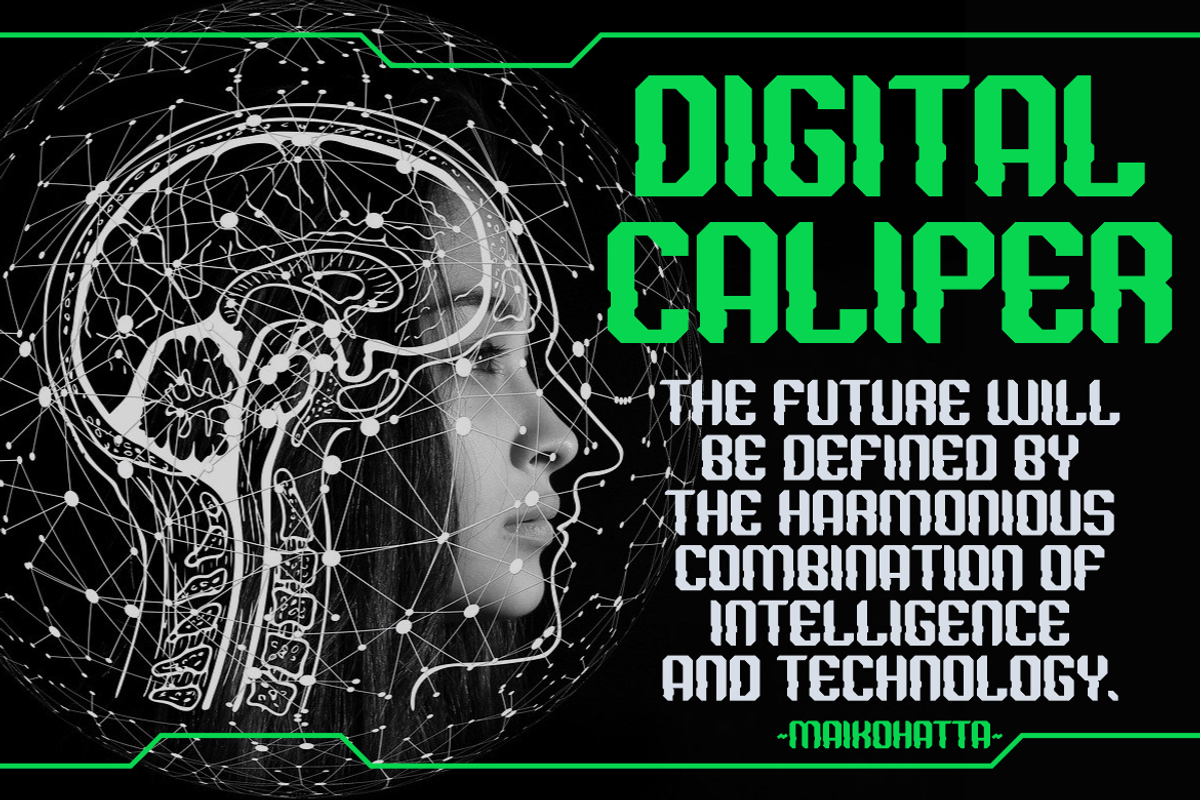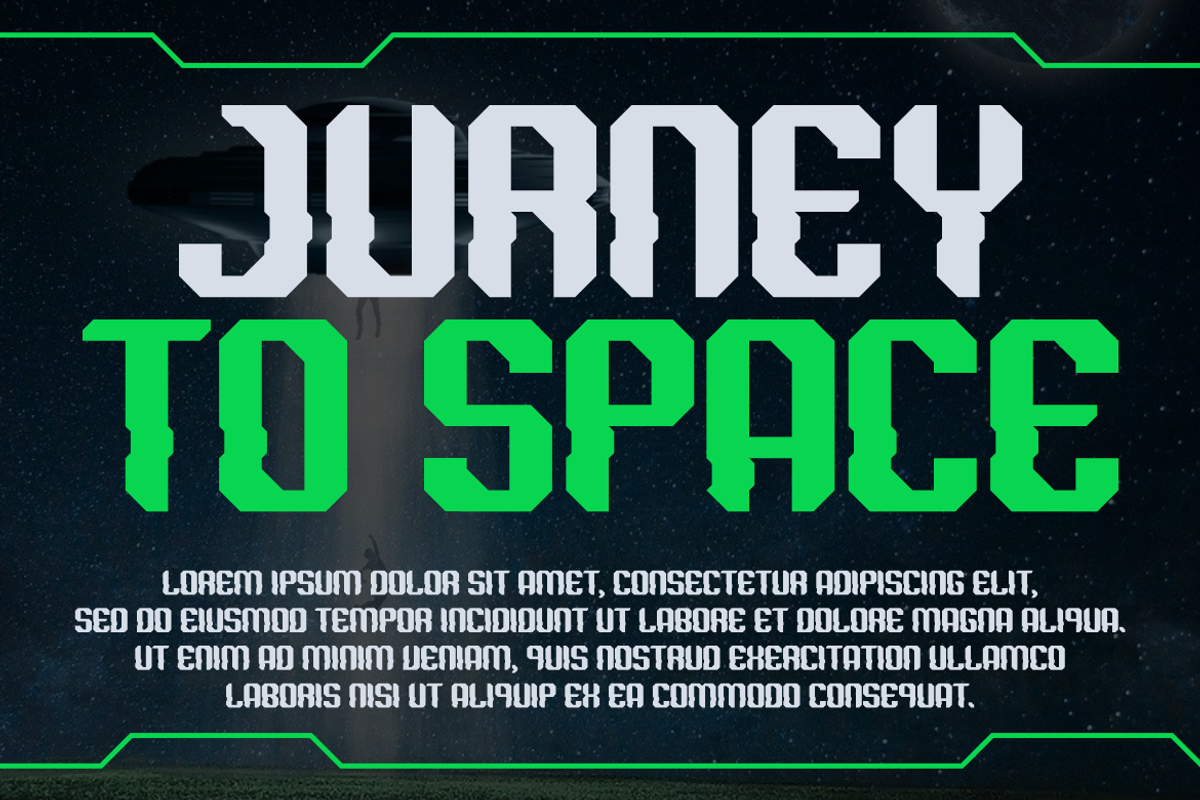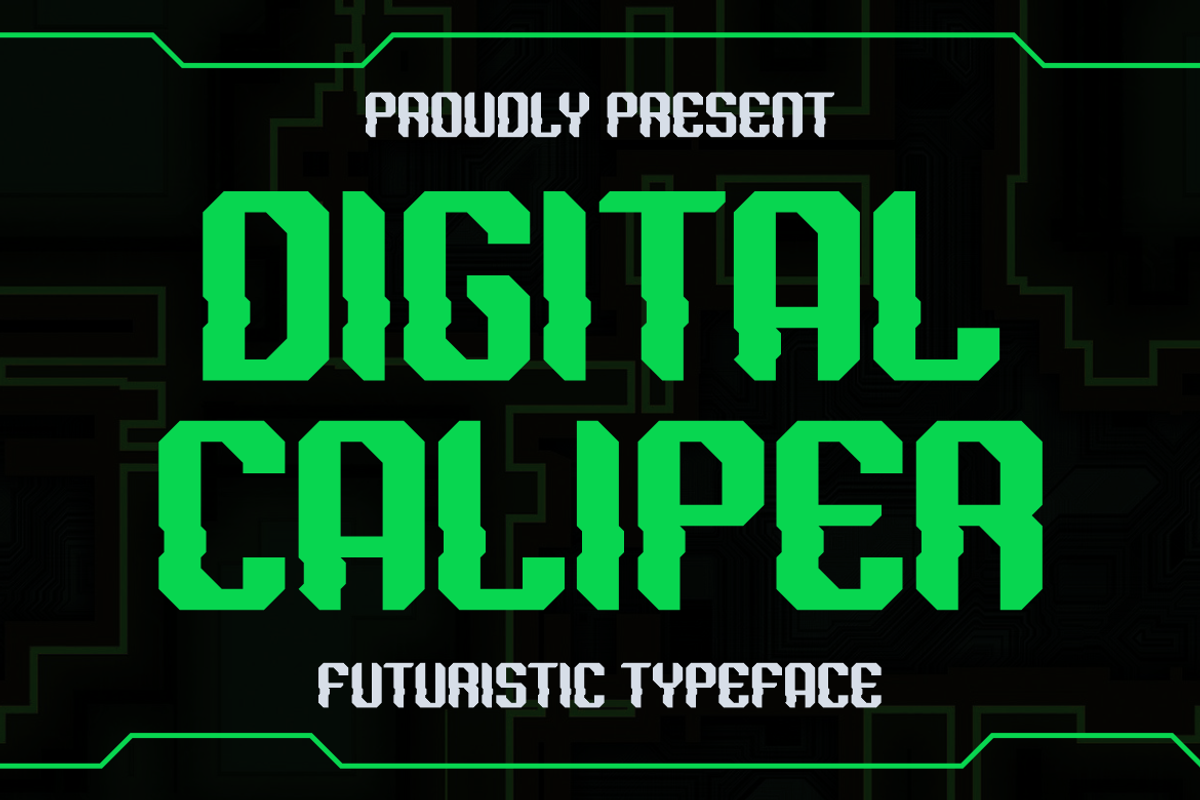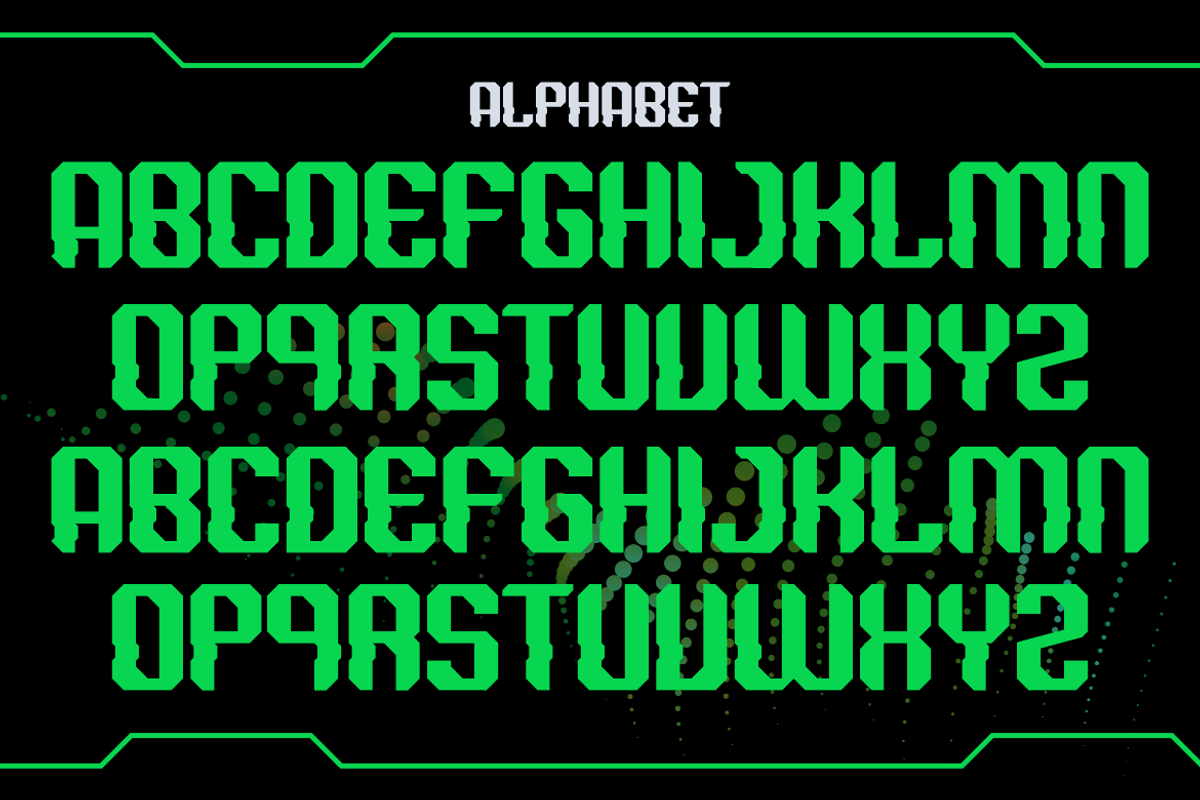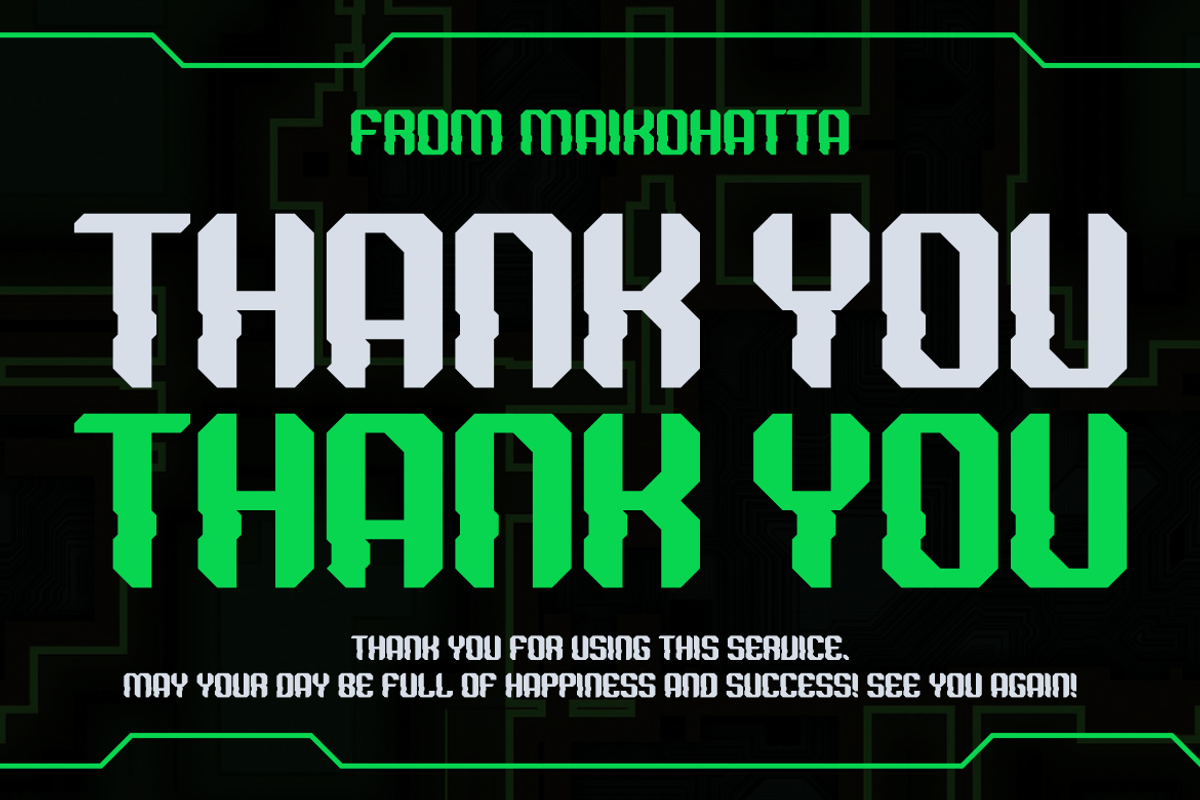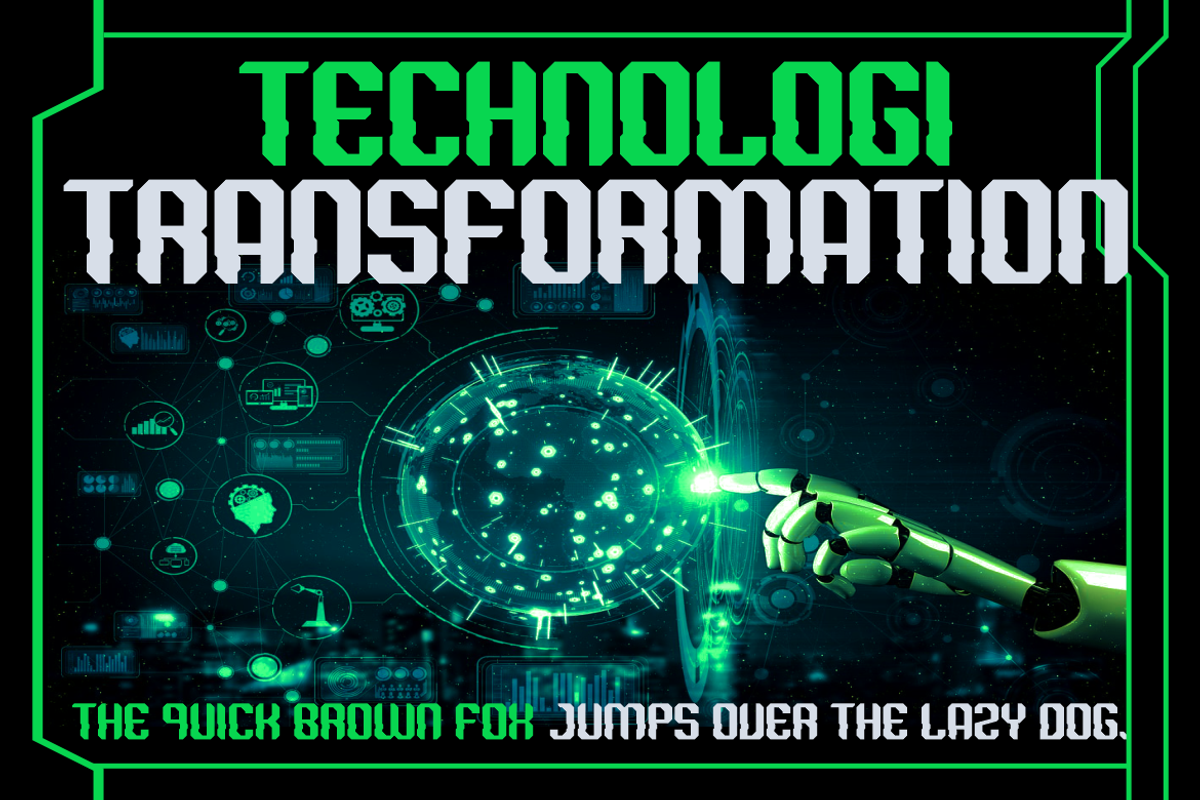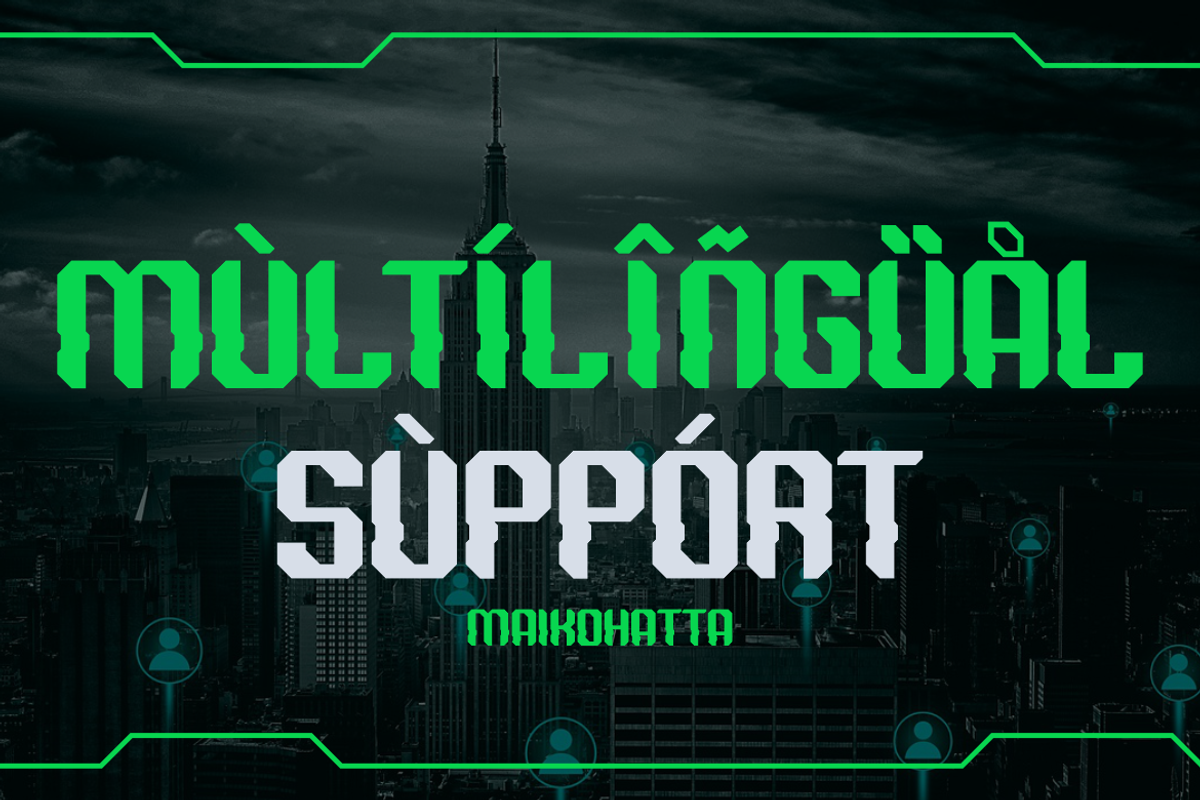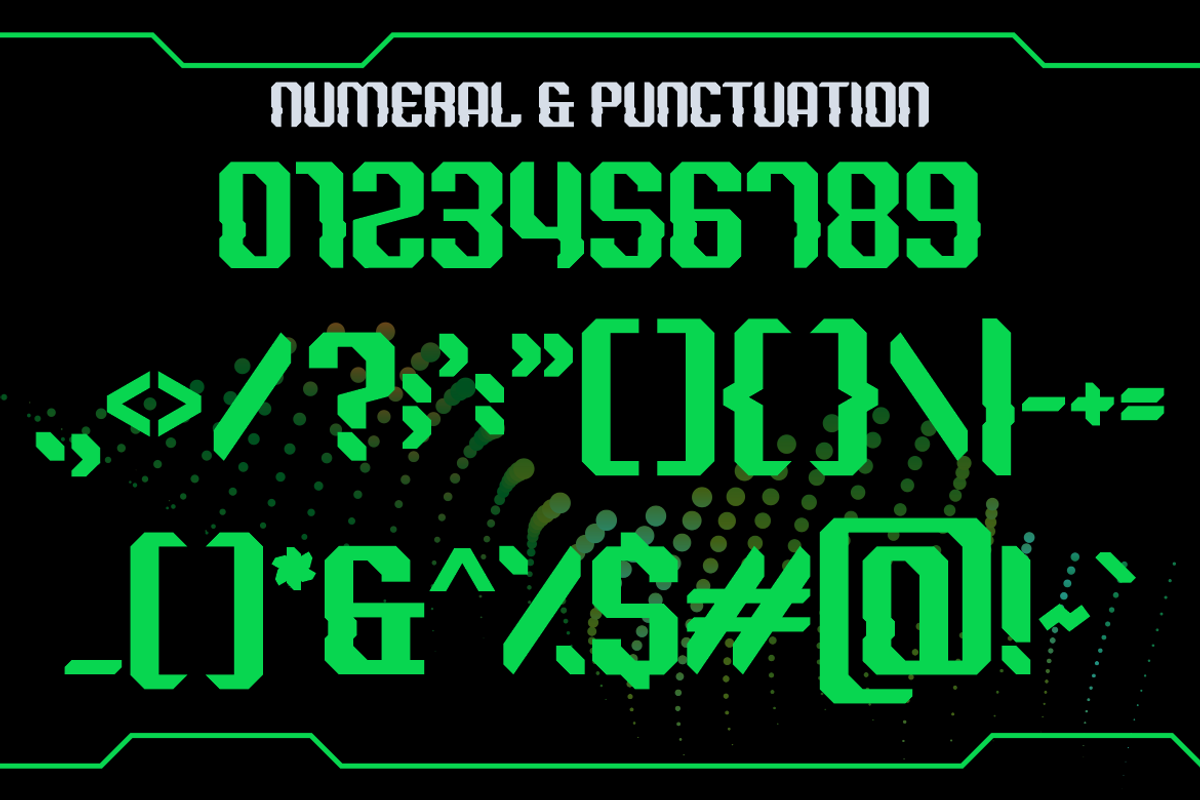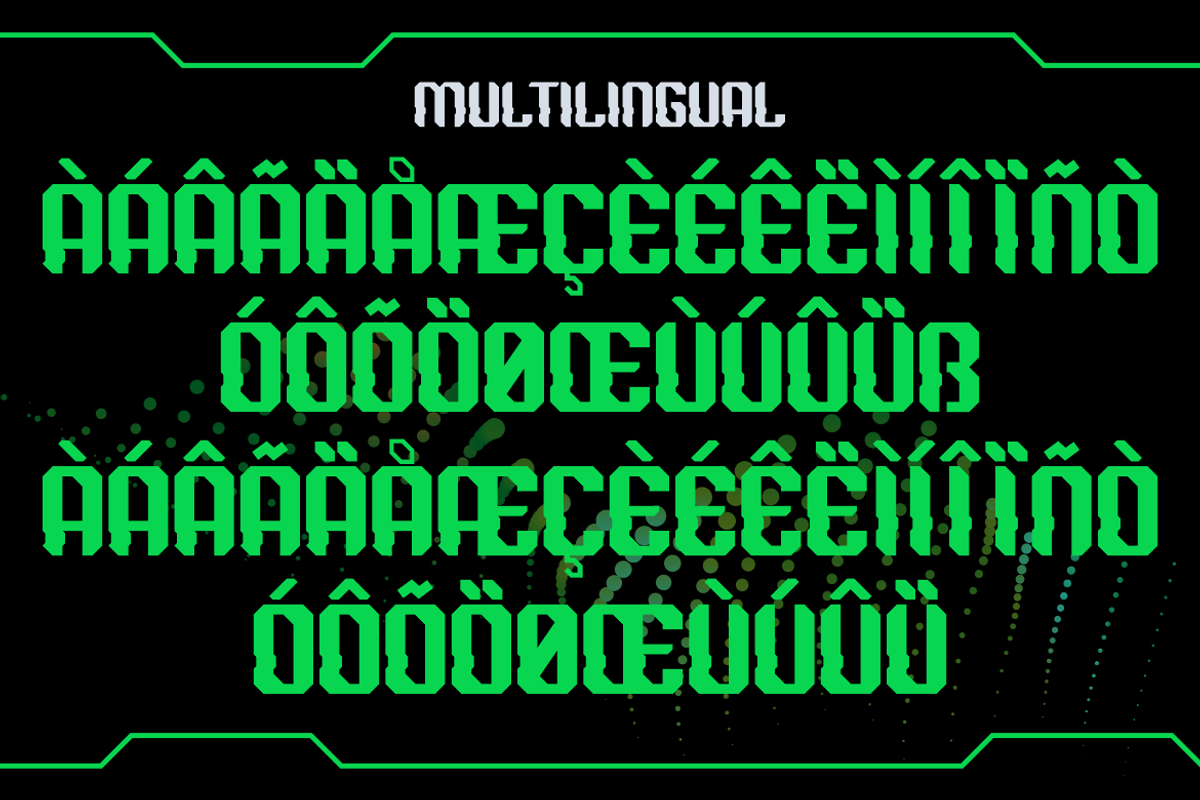
Digital Caliper-Futuristic Typeface
Digital Caliper is a type of lettering that features a futuristic design inspired by advanced technology. This font reflects the digital era and technological advancements, bringing a sense of modernity, innovation, and energy to any design. With sharp lines, geometric letter shapes, and futuristic elements, this font is suitable for projects related to technology, robotics, science, and modern lifestyle. This font are often found in logos, website designs, posters, and other creative projects that require a futuristic touch.